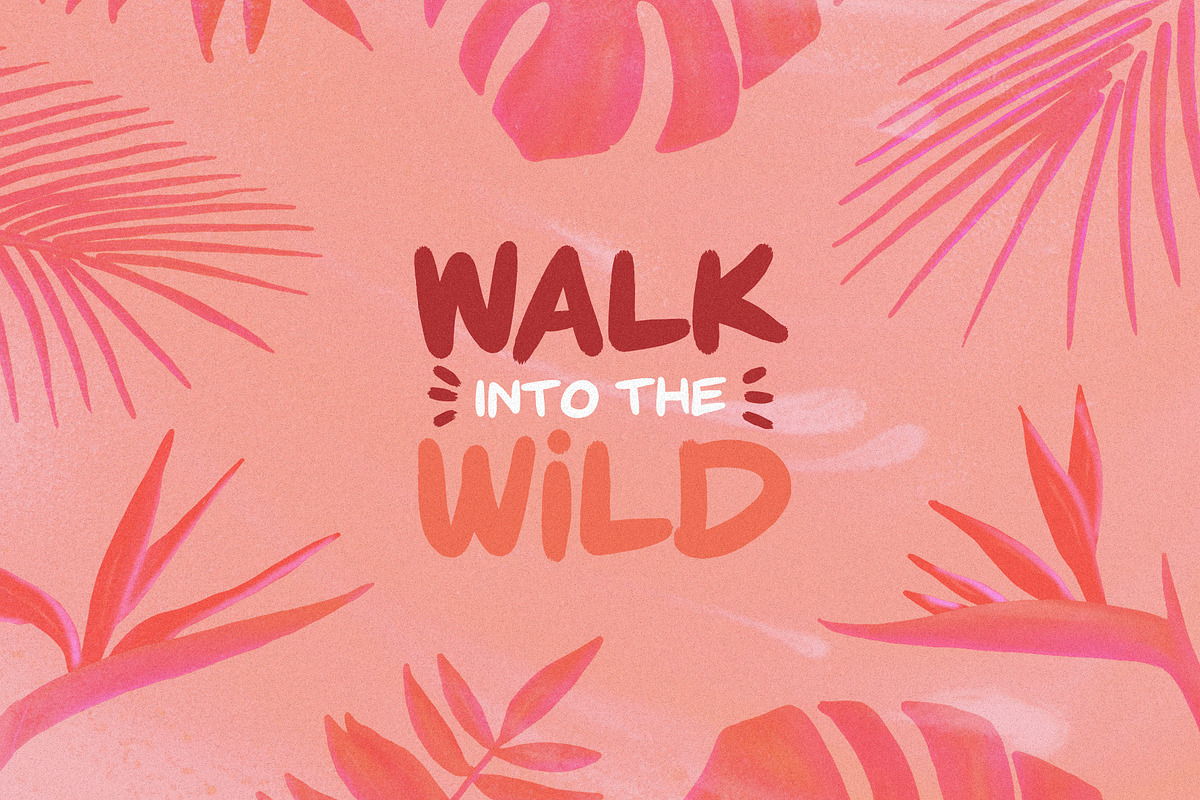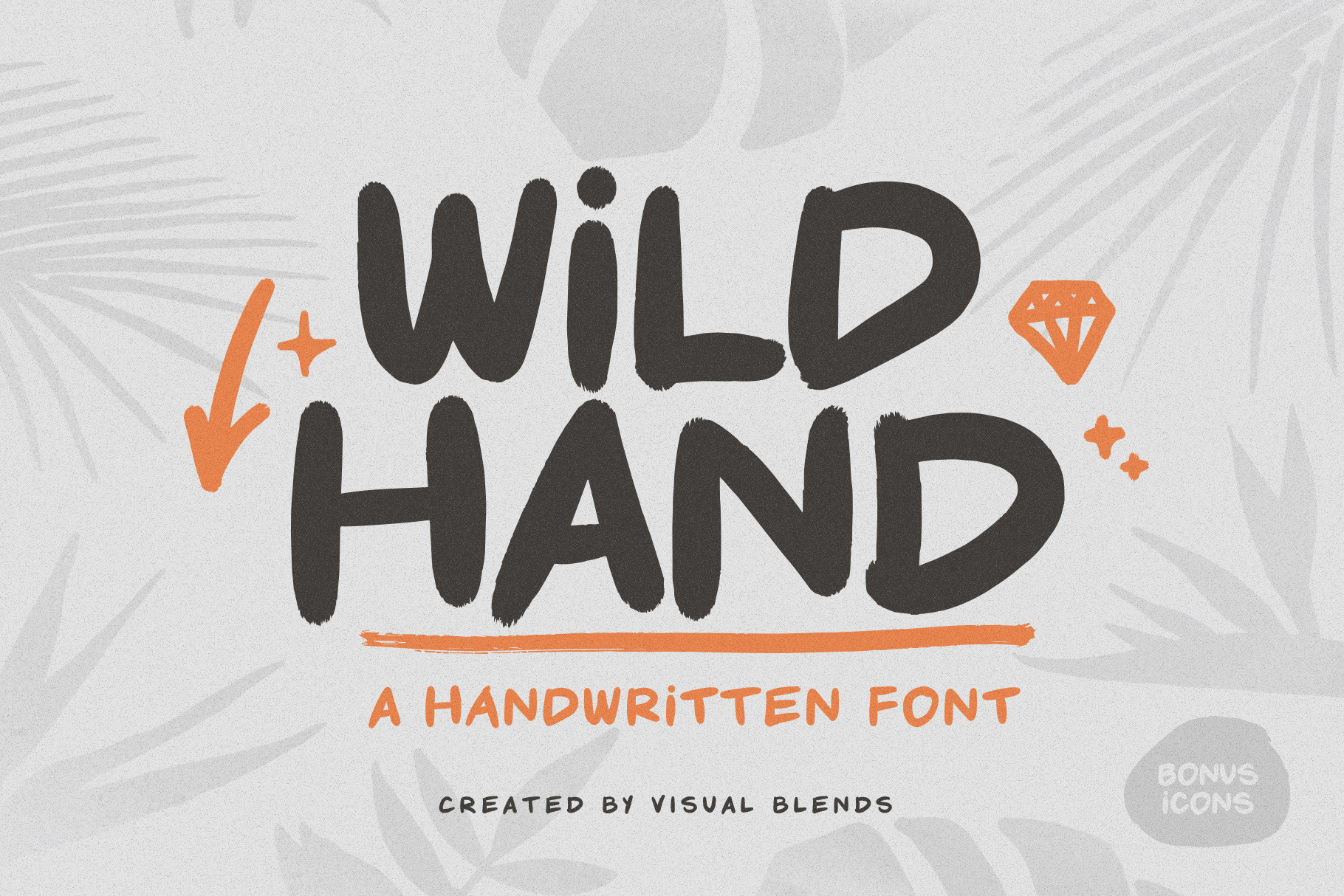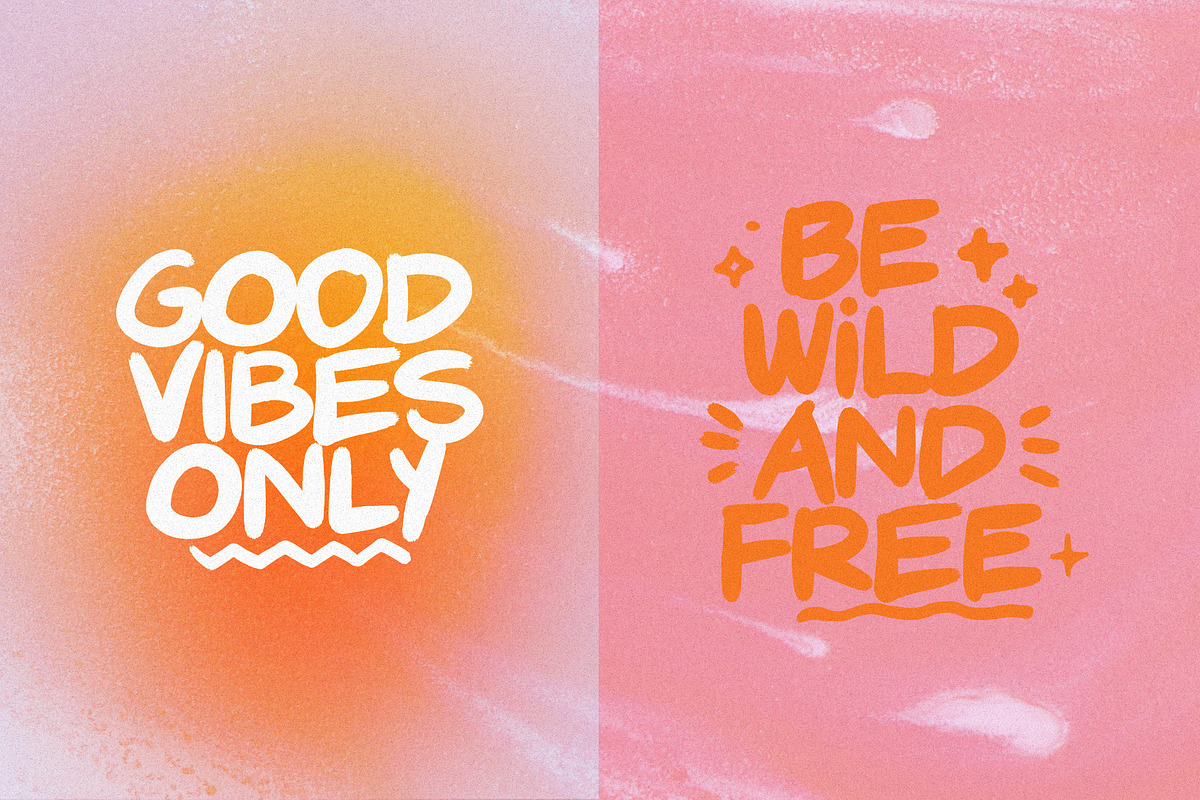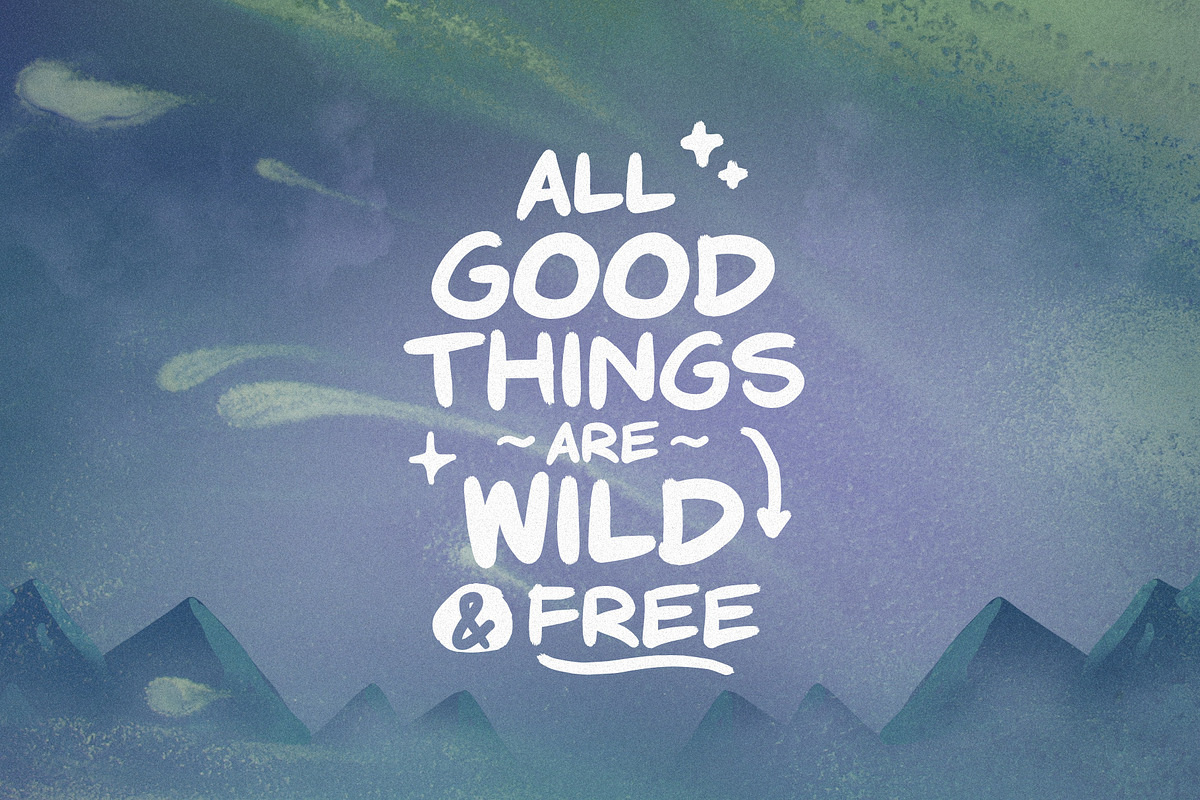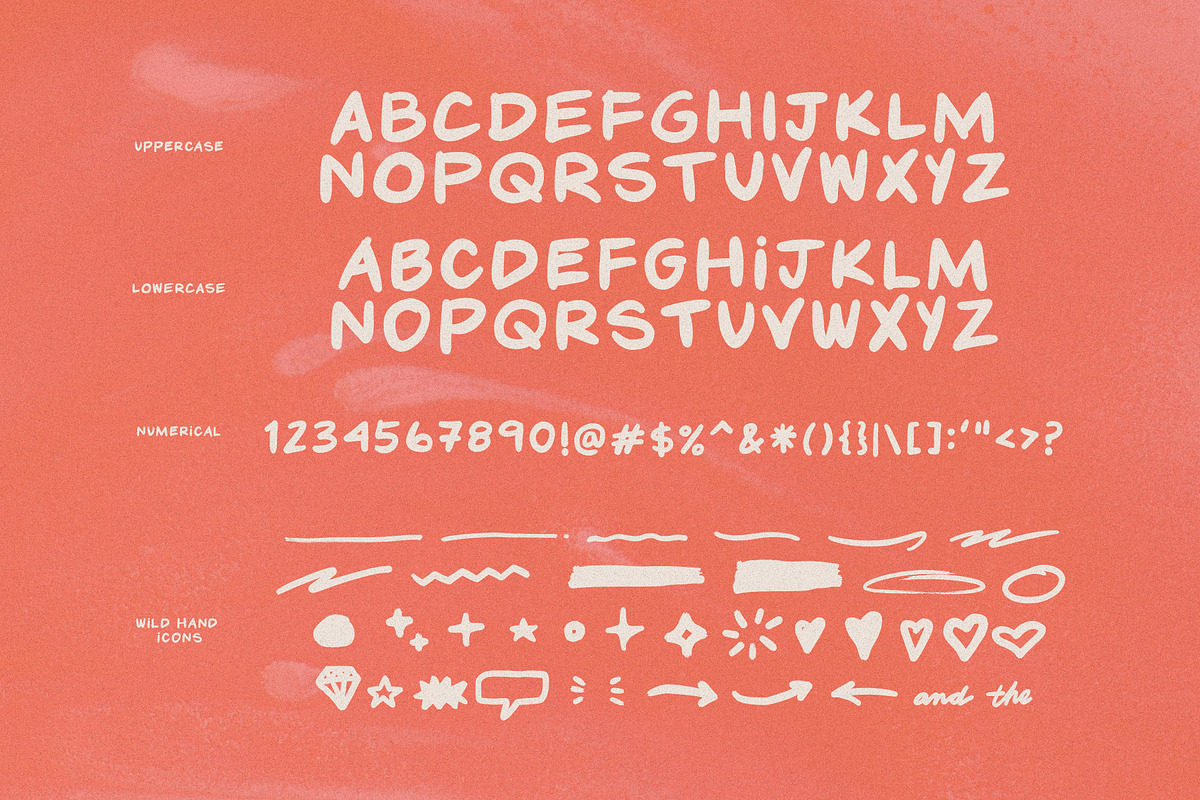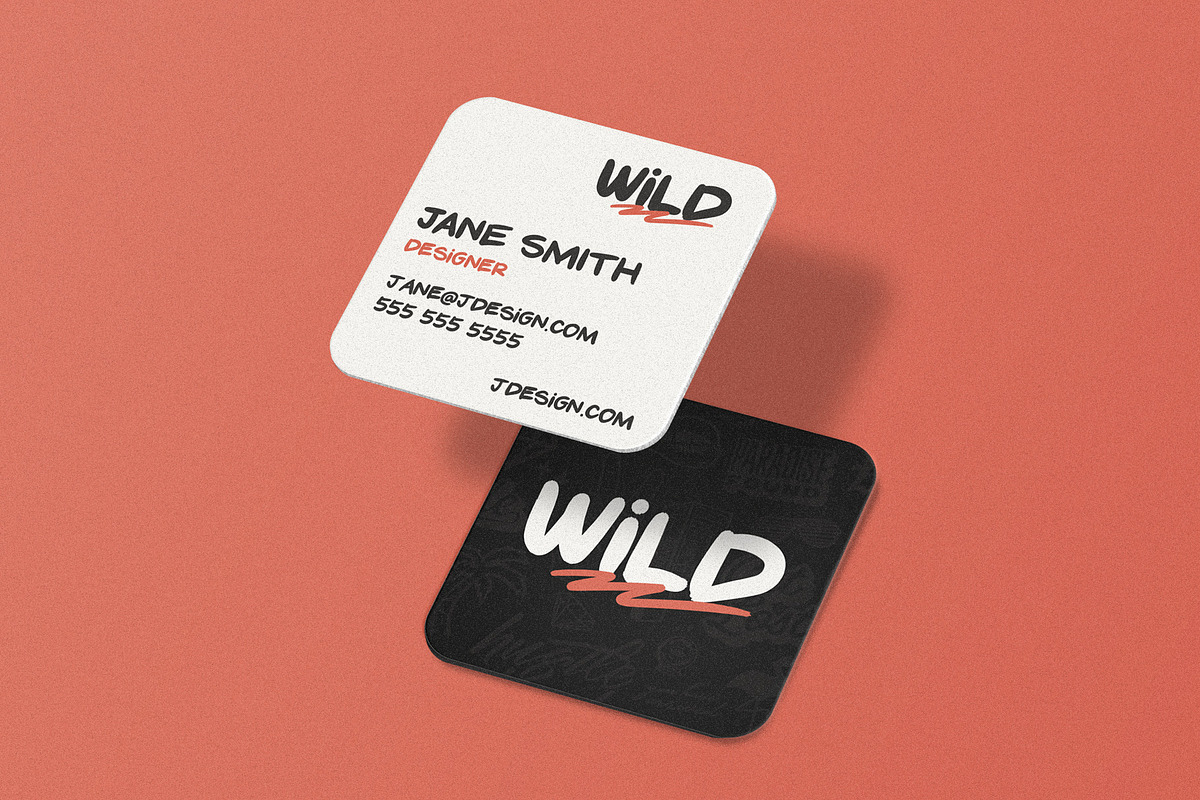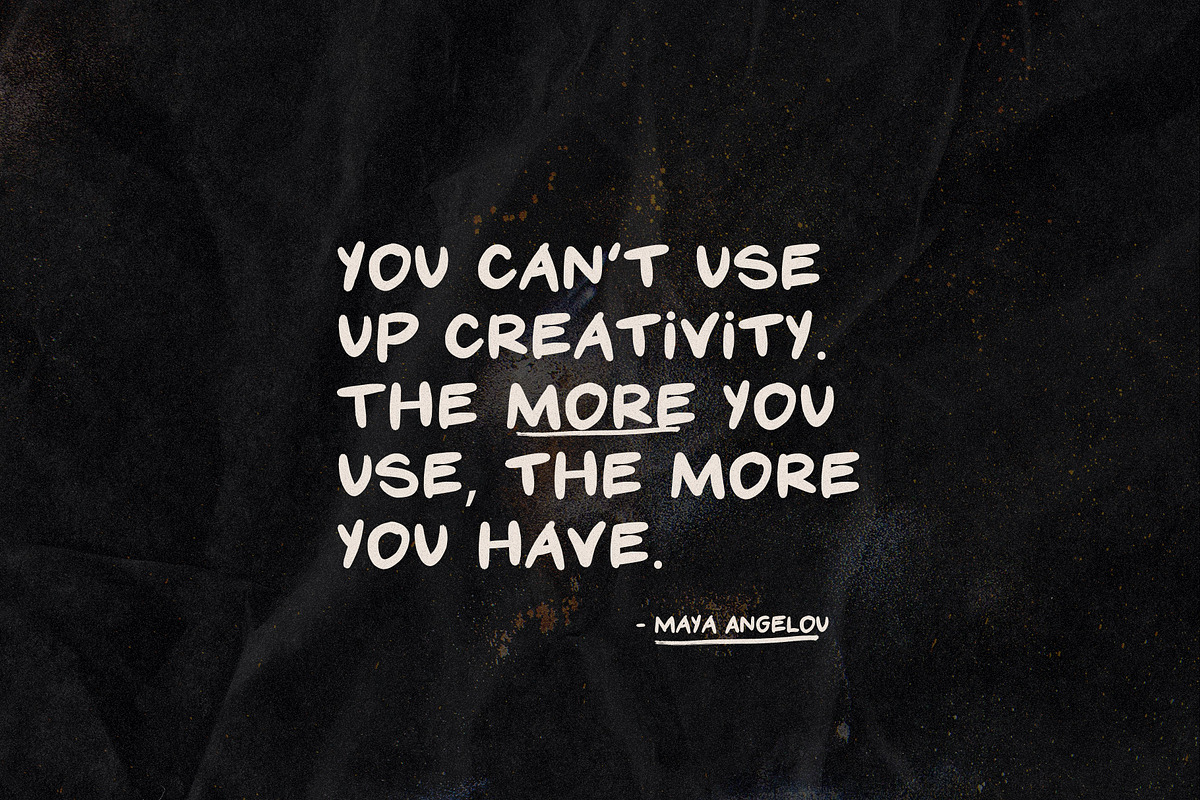
Wild Hand- Handwritten Font
Wild Hand is a modern, bold marker font with a fun urban street vibe. Perfect for hand lettering projects, T-shirt designs, branding and MORE! Make your project feel custom and handmade using this font collection.
Wild Hand was created with a marker brush and you can alternate characters using upper and lower case. Combine different characters to give your project a bespoke handmade vibe. As a bonus, supporting hand drawn icons are included.
Wild Hand- Font
- One Weight
- Uppercase Only
- Punctuation, Symbols & Numbers
Wild Hand- Icons
- 36 custom icons
- Arrows, Doodles & more!
- Custom and Unique